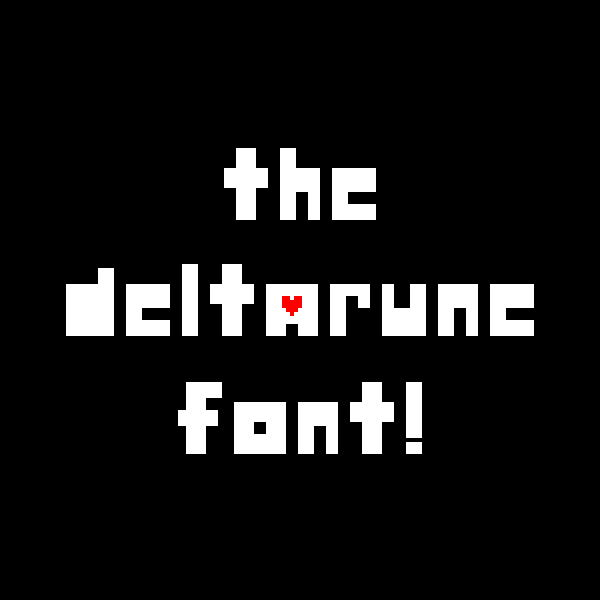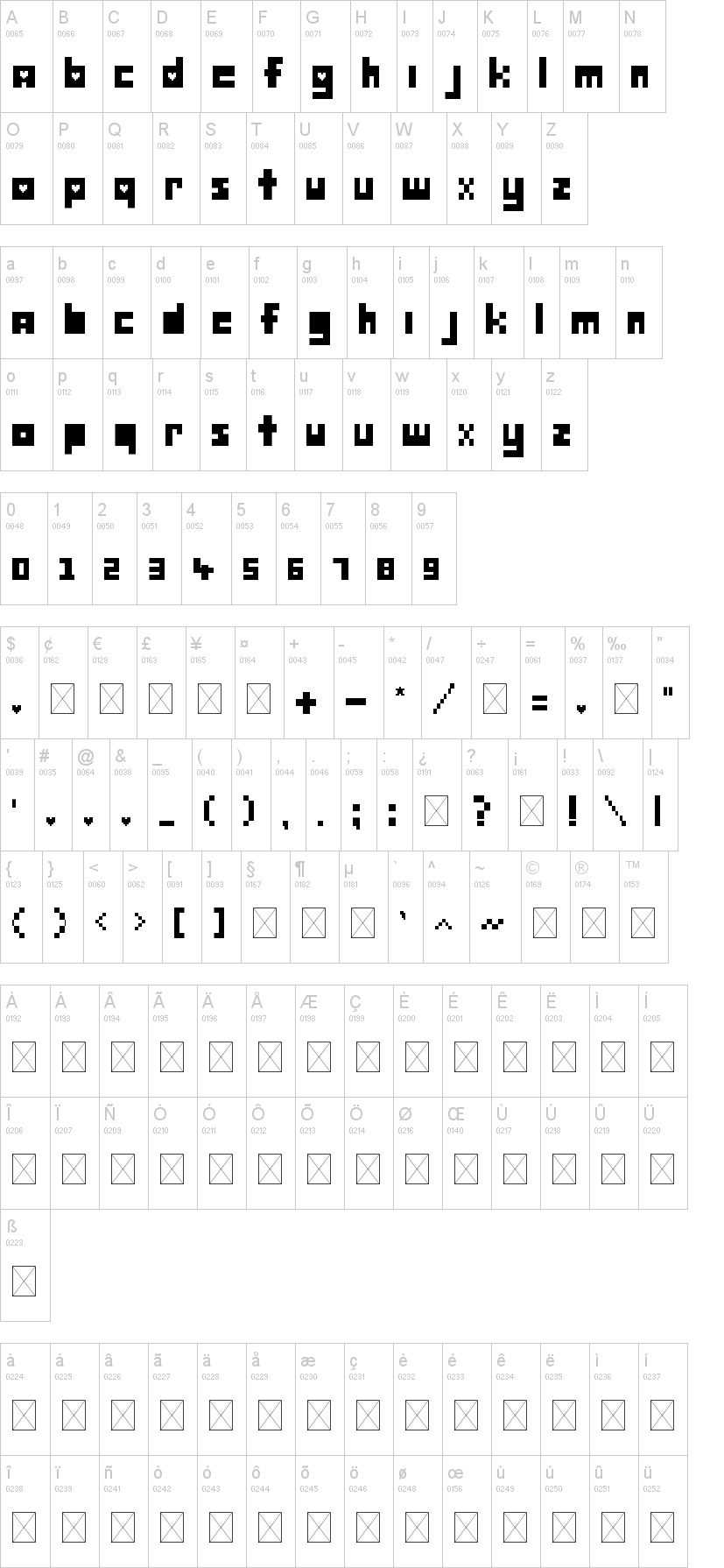
Note of the authorSo here's a little font I made for the Deltarune Logo, hopefully it should be accurate enough for use.
Make sure to set the text size to 18.5
For maximum accuracy use uppercase E for the last e in text.